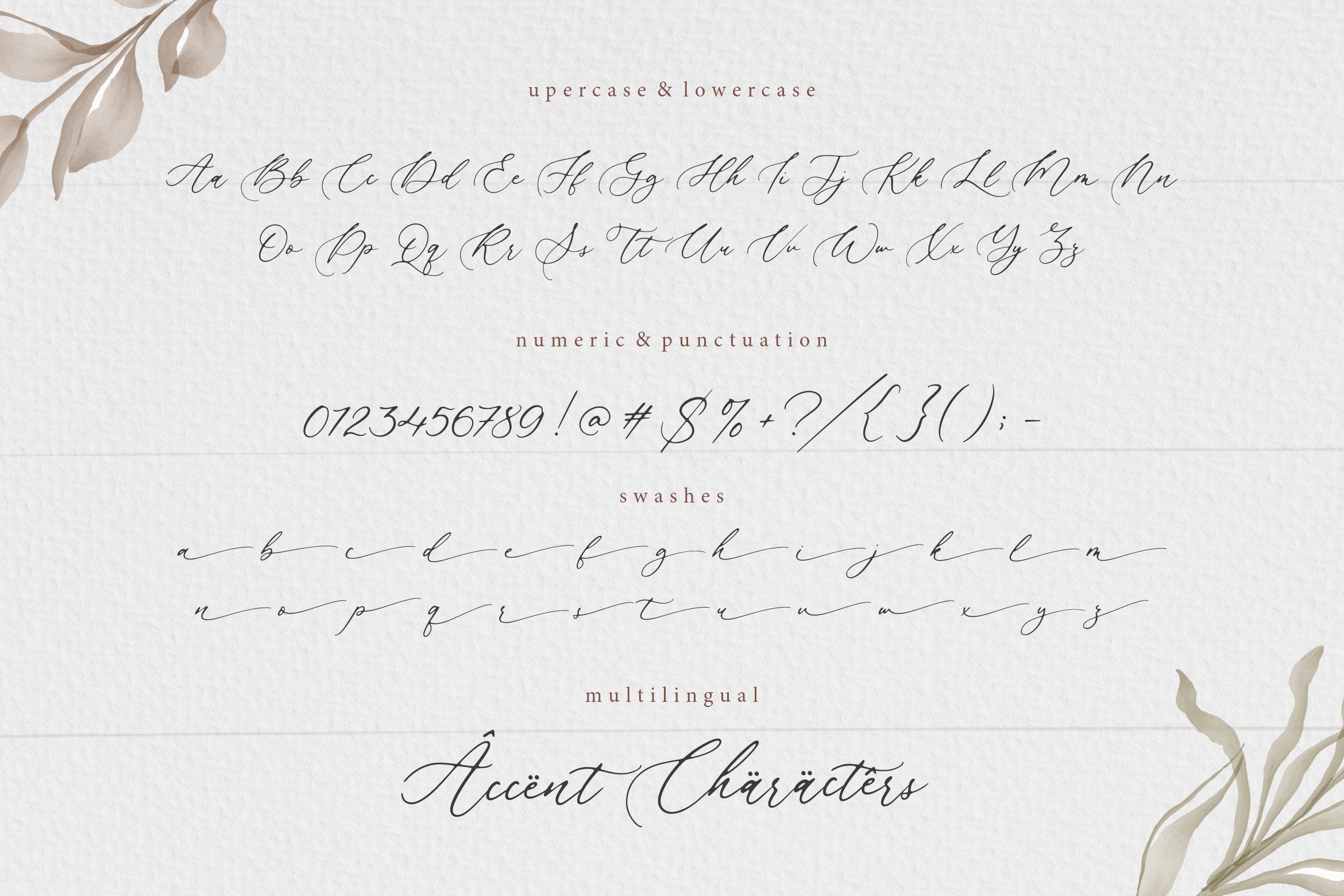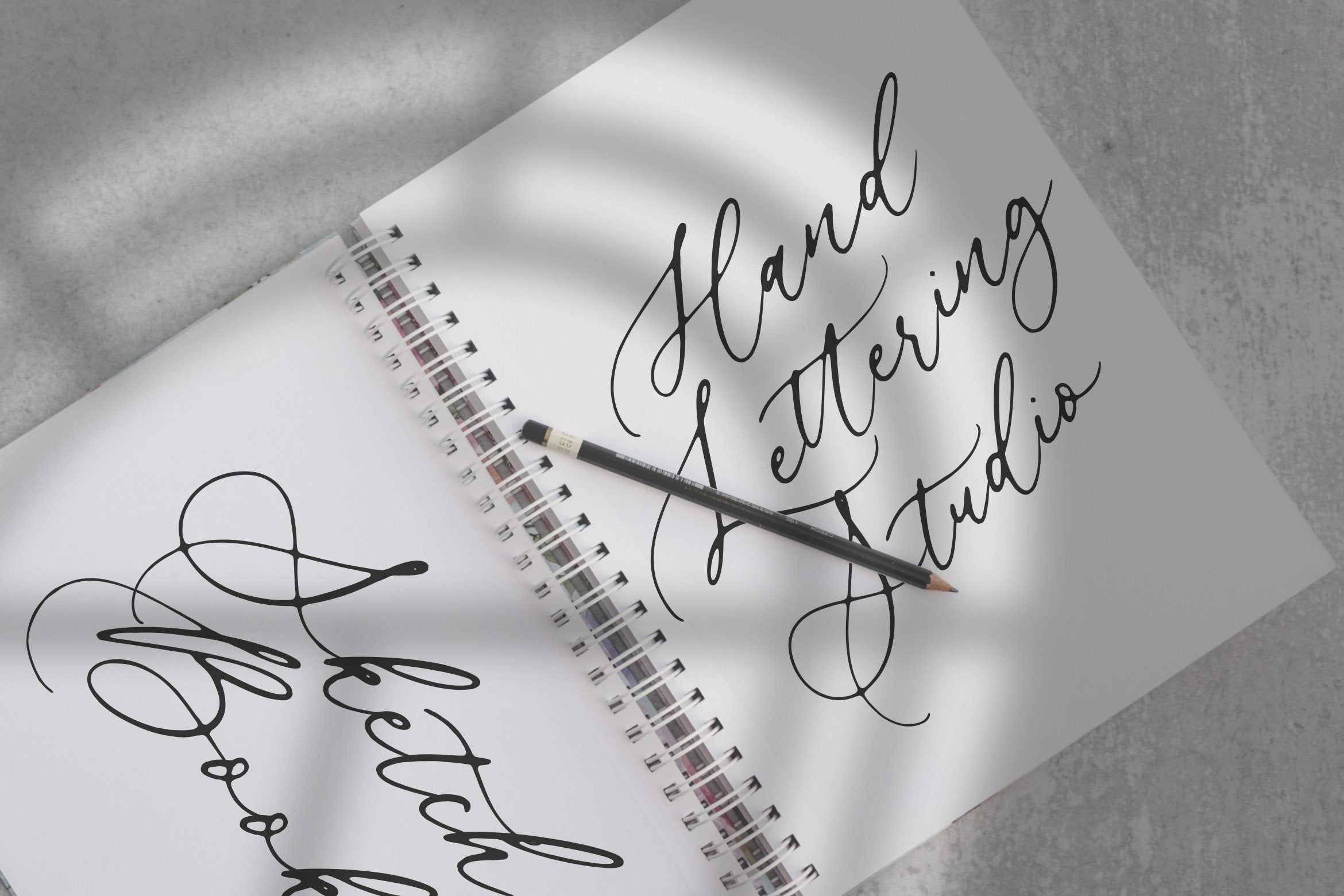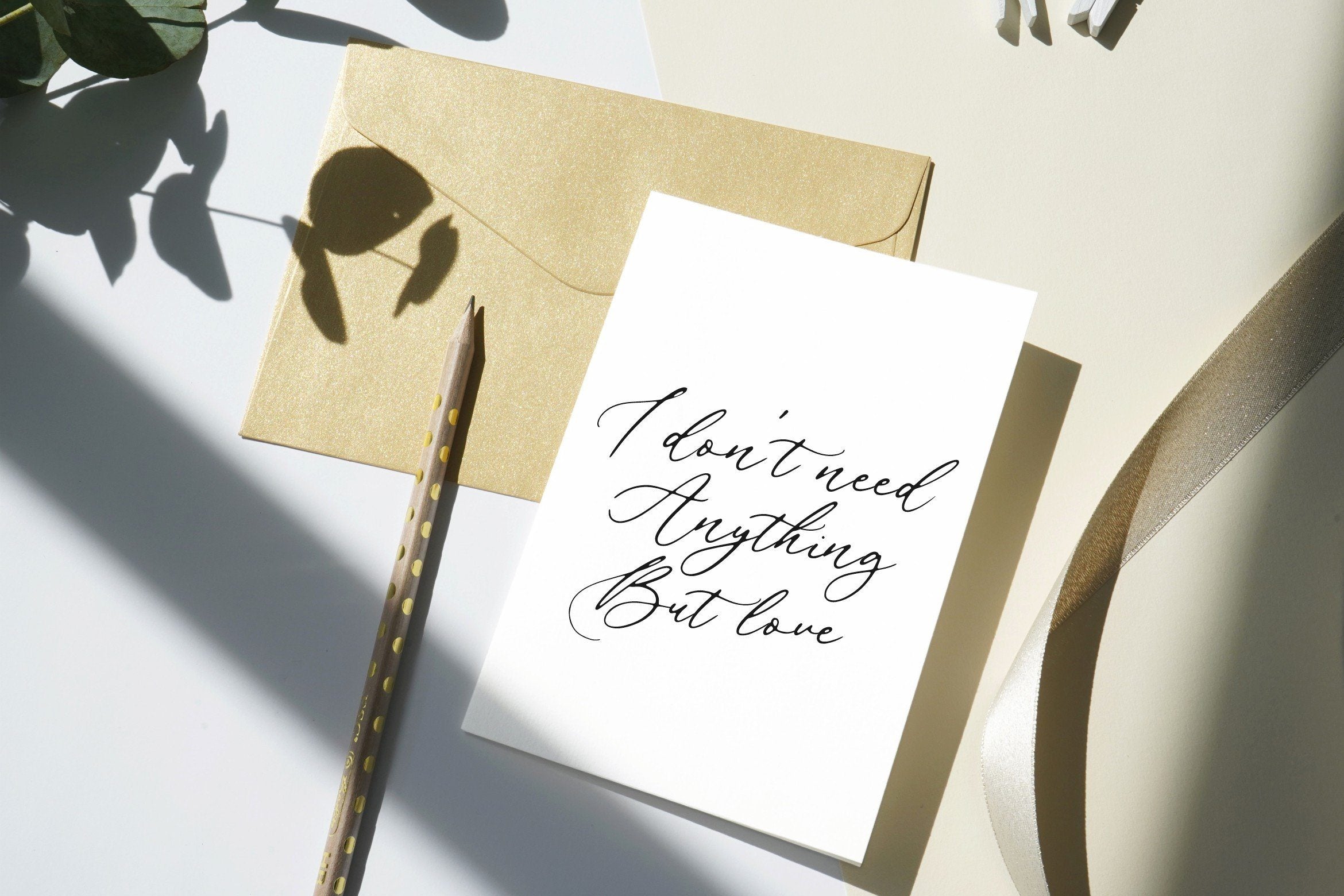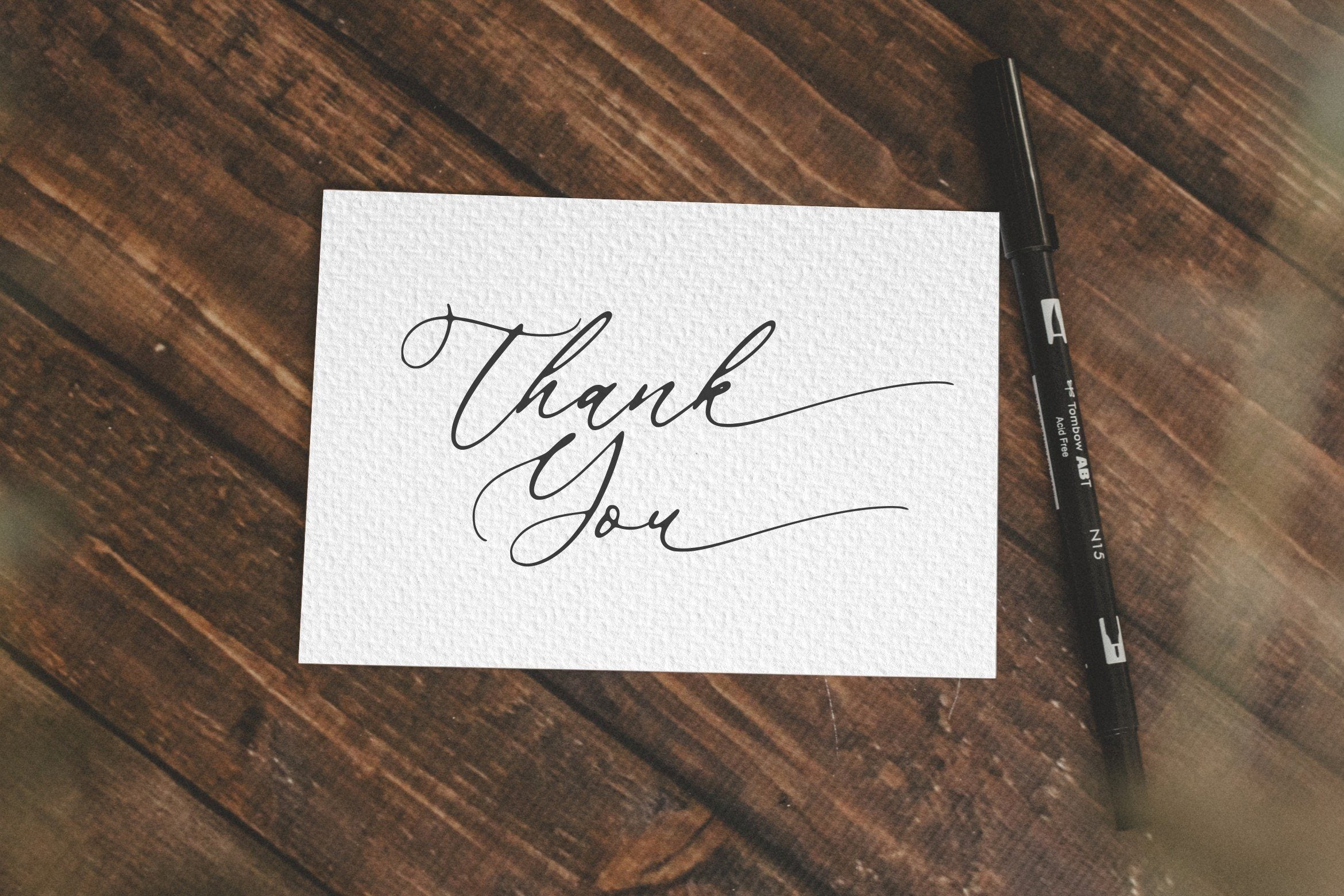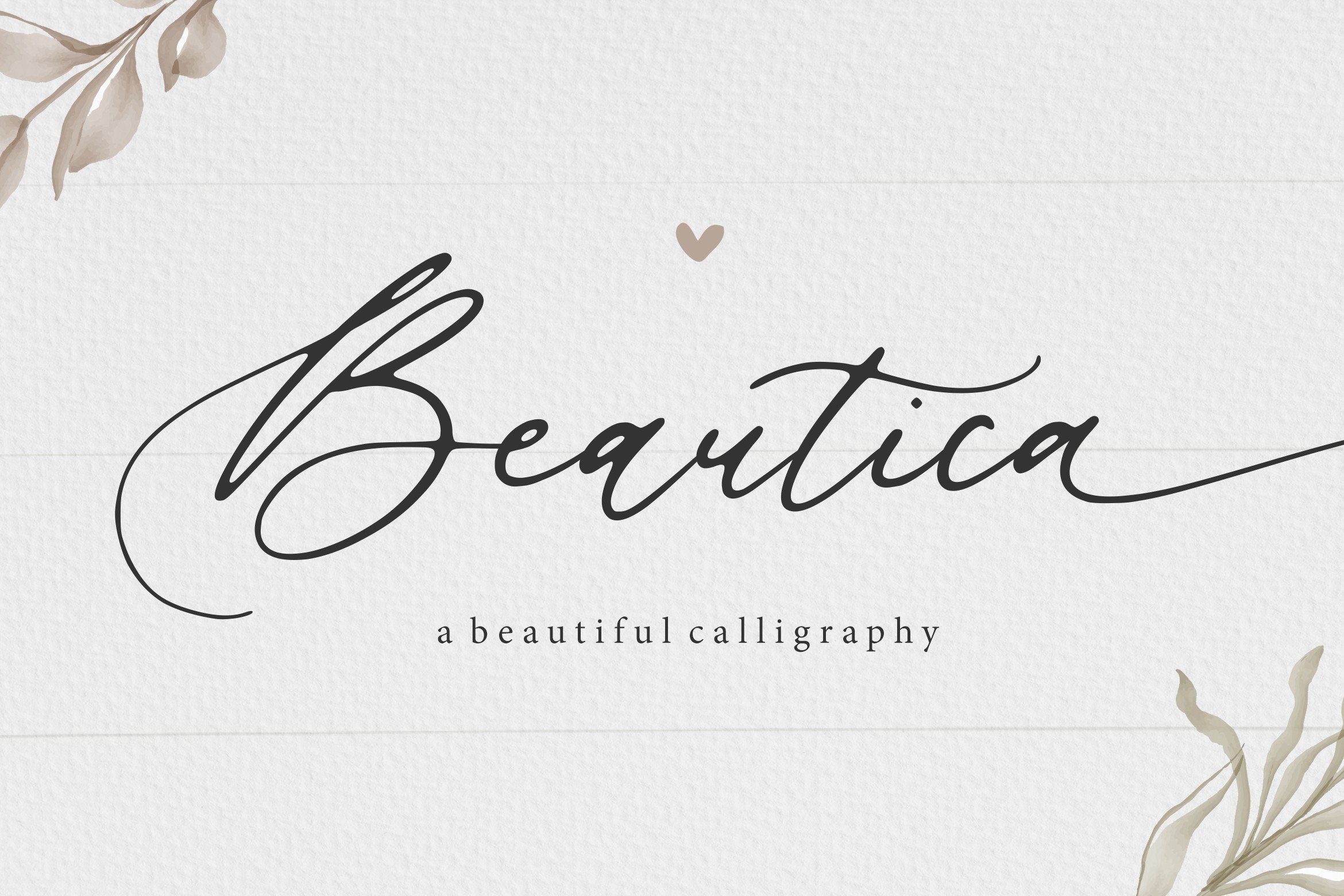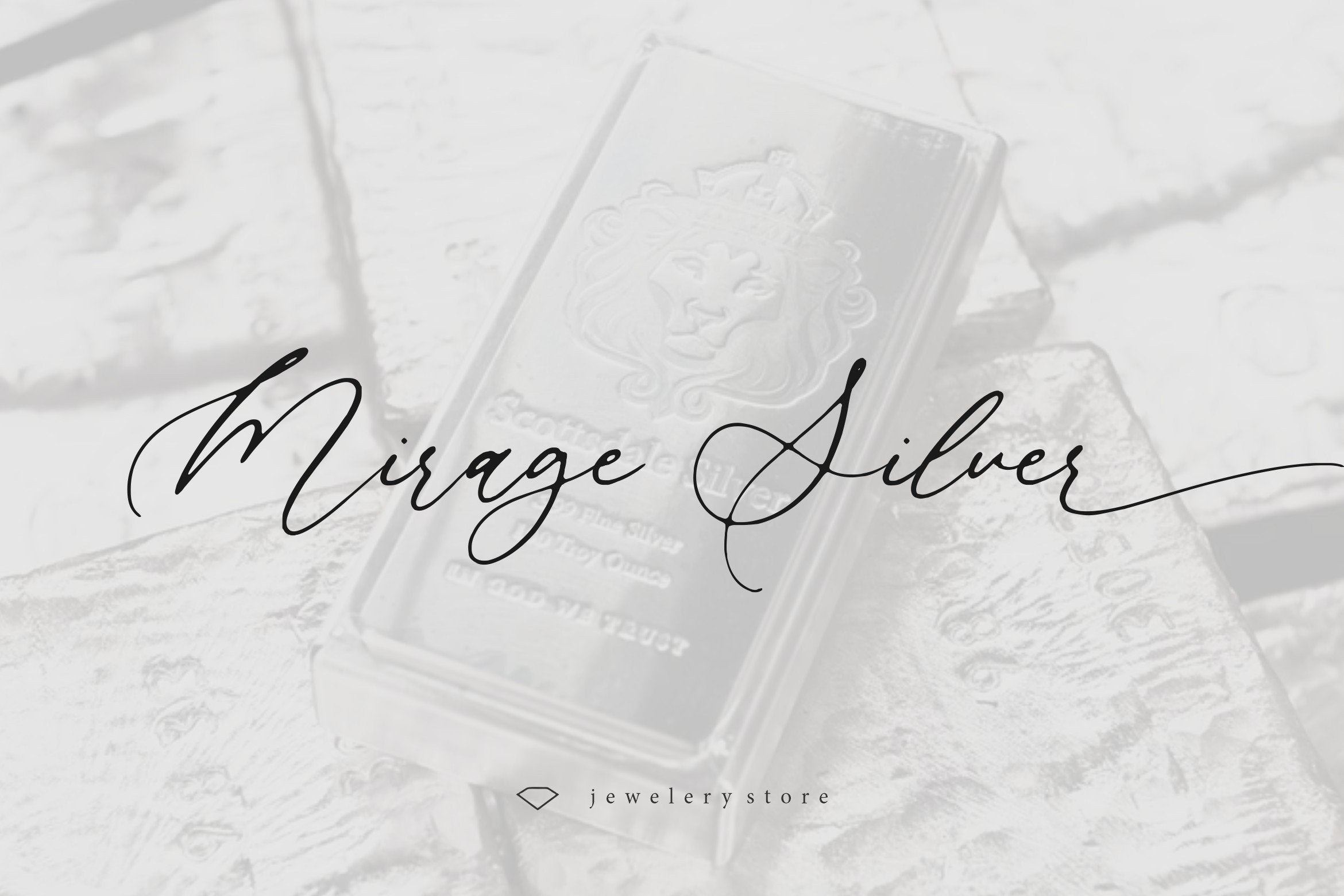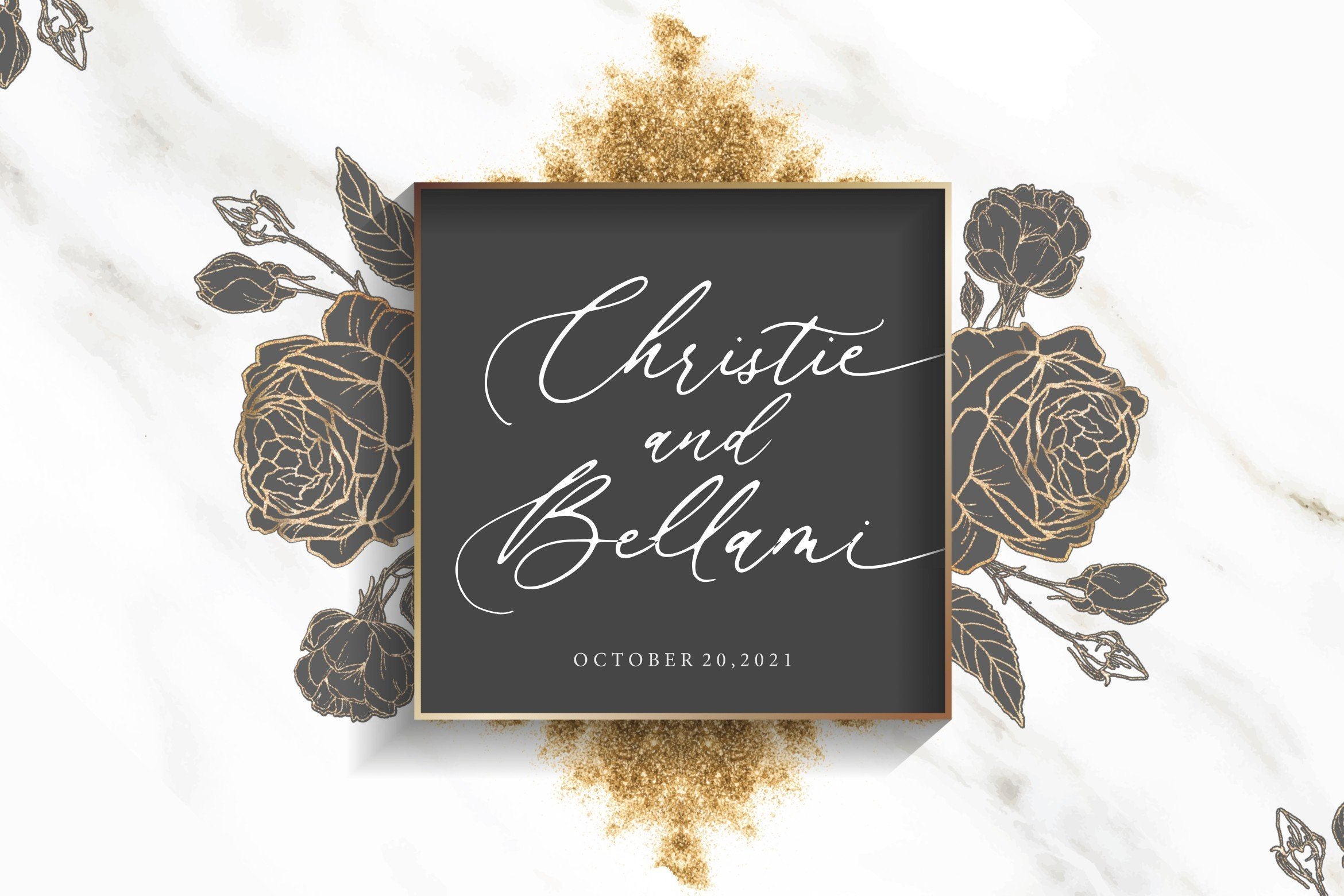
Beautica Beautiful Calligraphy Font
About Beautica Beautiful Calligraphy Font
Introducing by Balpirick Studio. Proudly Present, Beautica Font. Beautica is a Beautiful Calligraphy Font. Beautica is a flowing handwritten font, described by an elegant touch, perfect for your favorite projects. Fall in love with its incredibly distinct and timeless style and use it to create spectacular designs! This font includes TTF, OTF and WOFF, Beautica also multilingual support. Enjoy the font, feel free to comment or feedback, send me PM or email. Thank you!